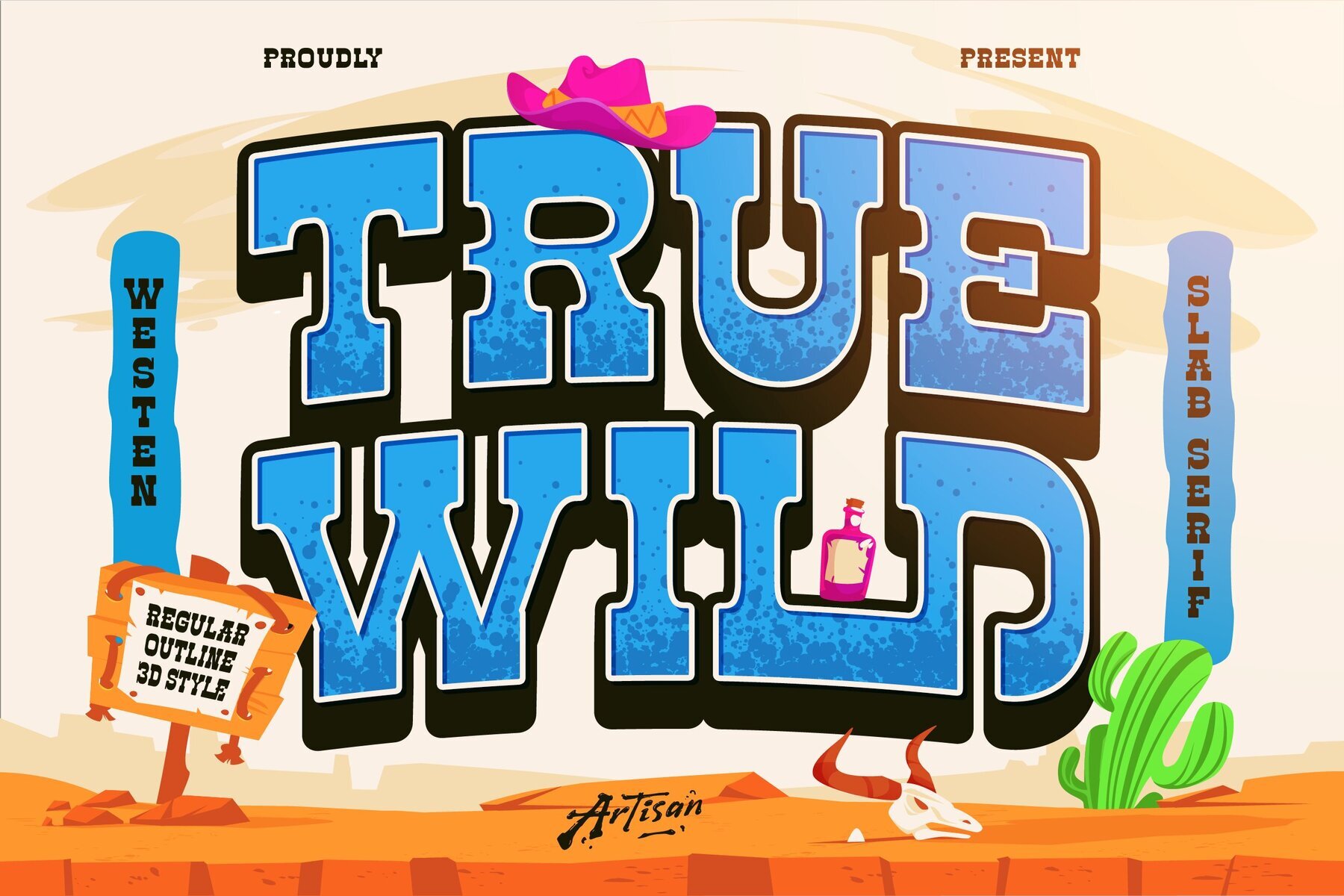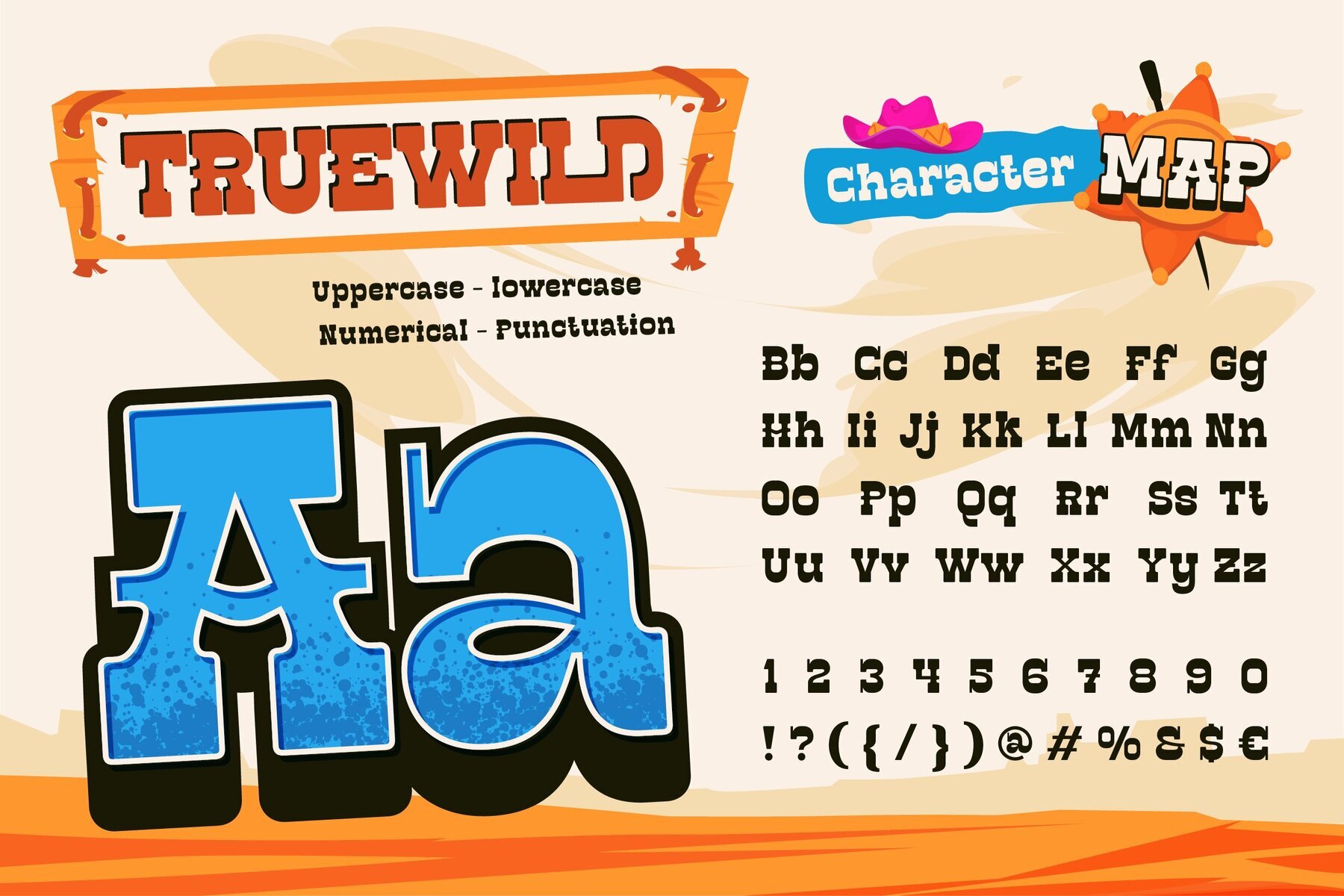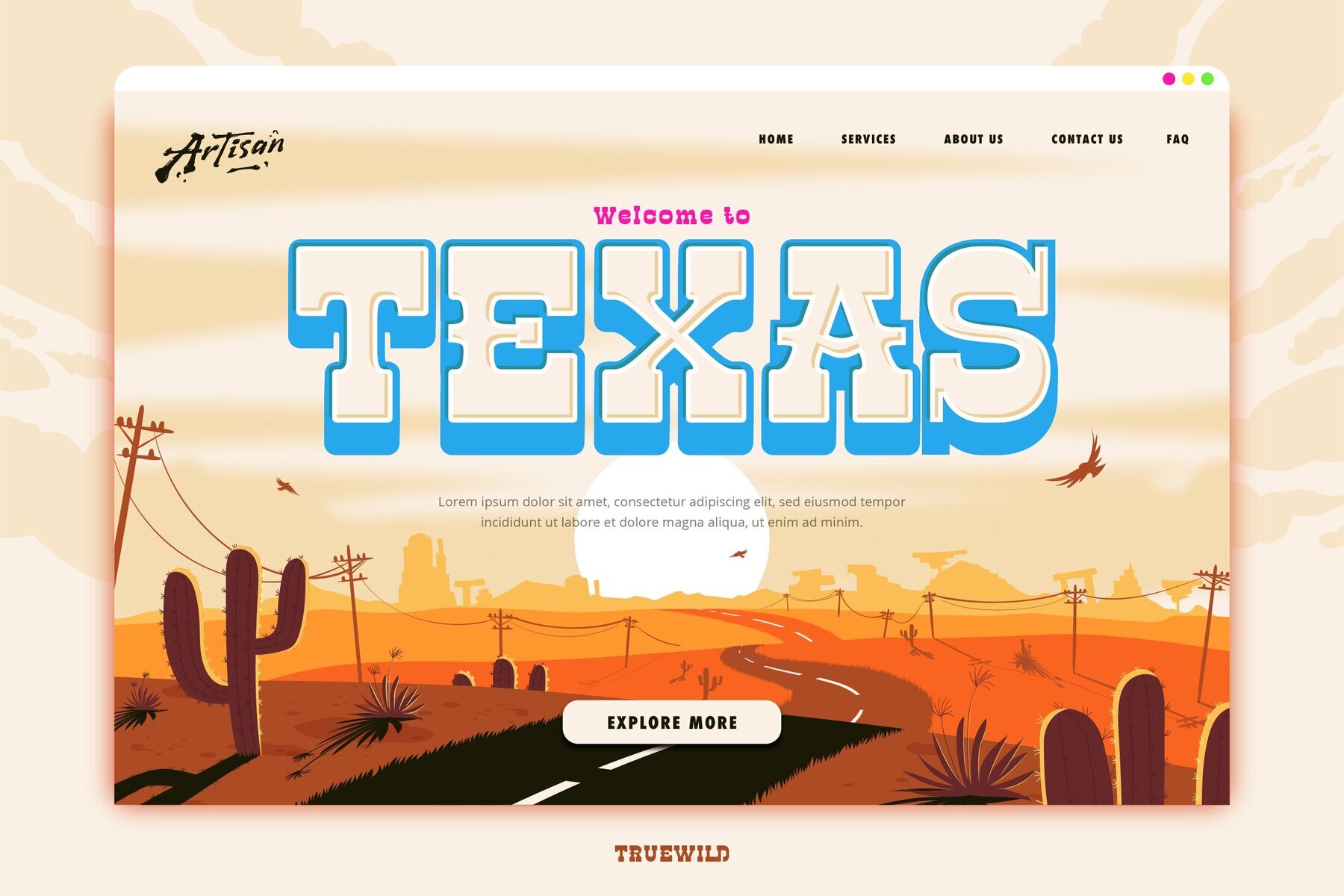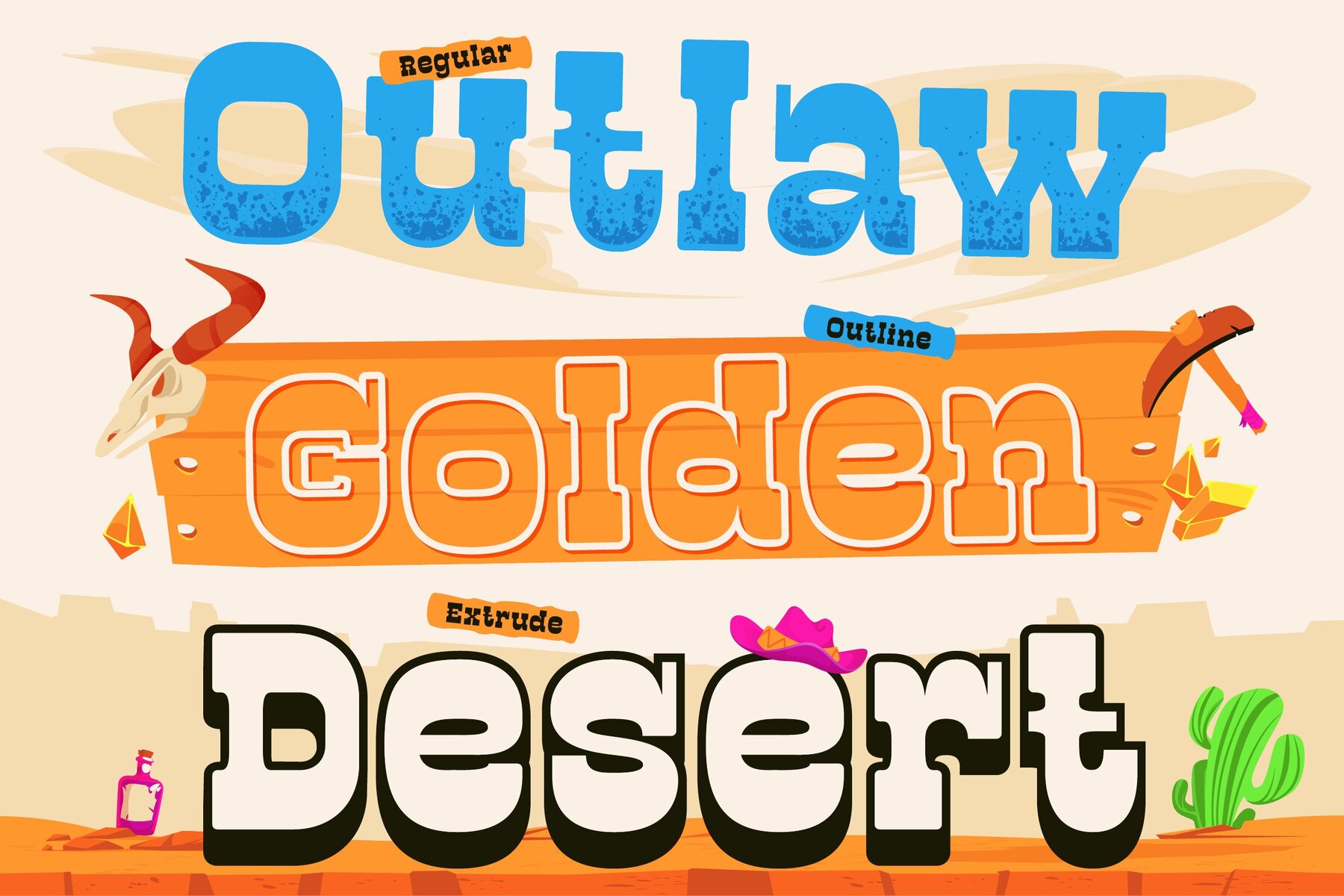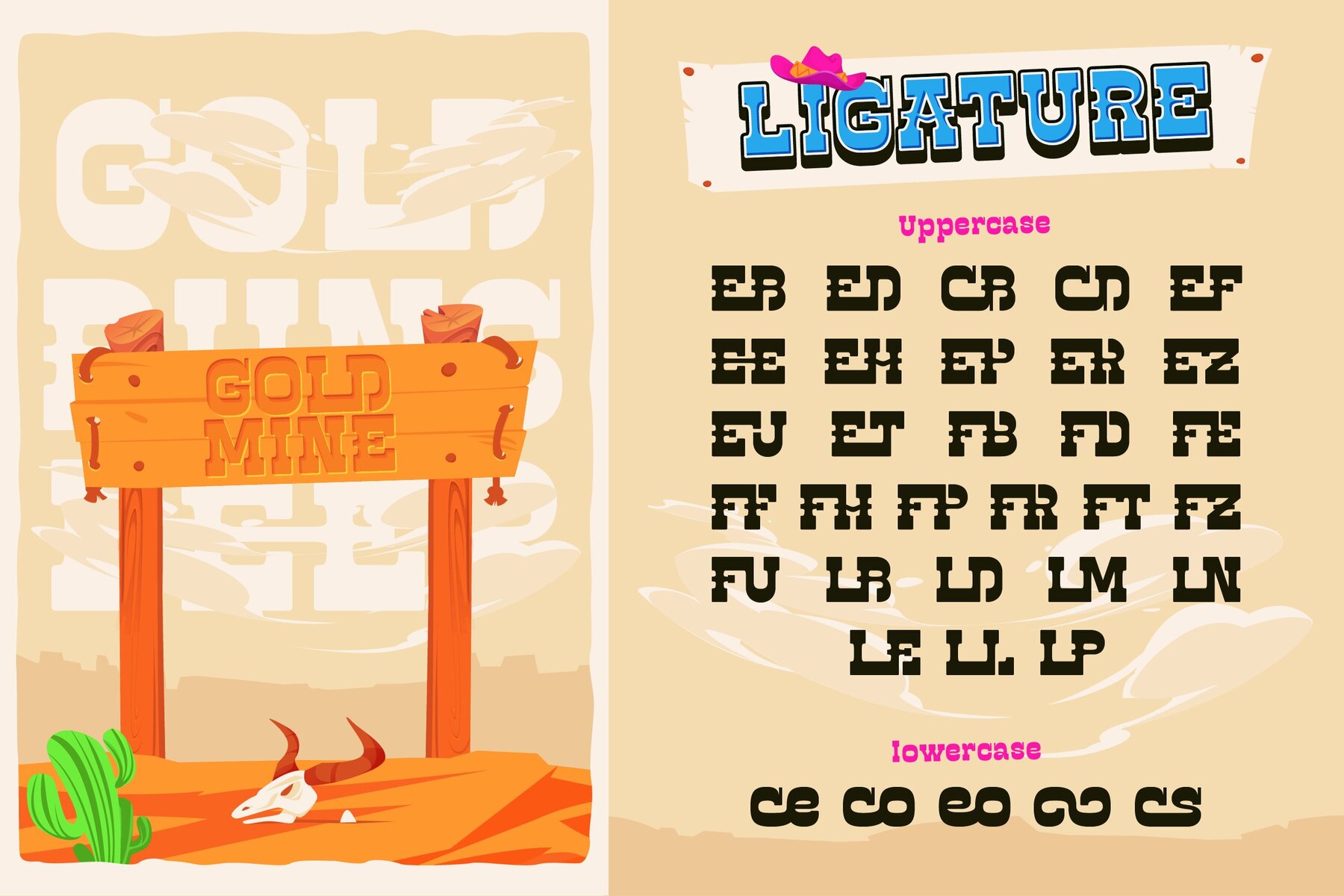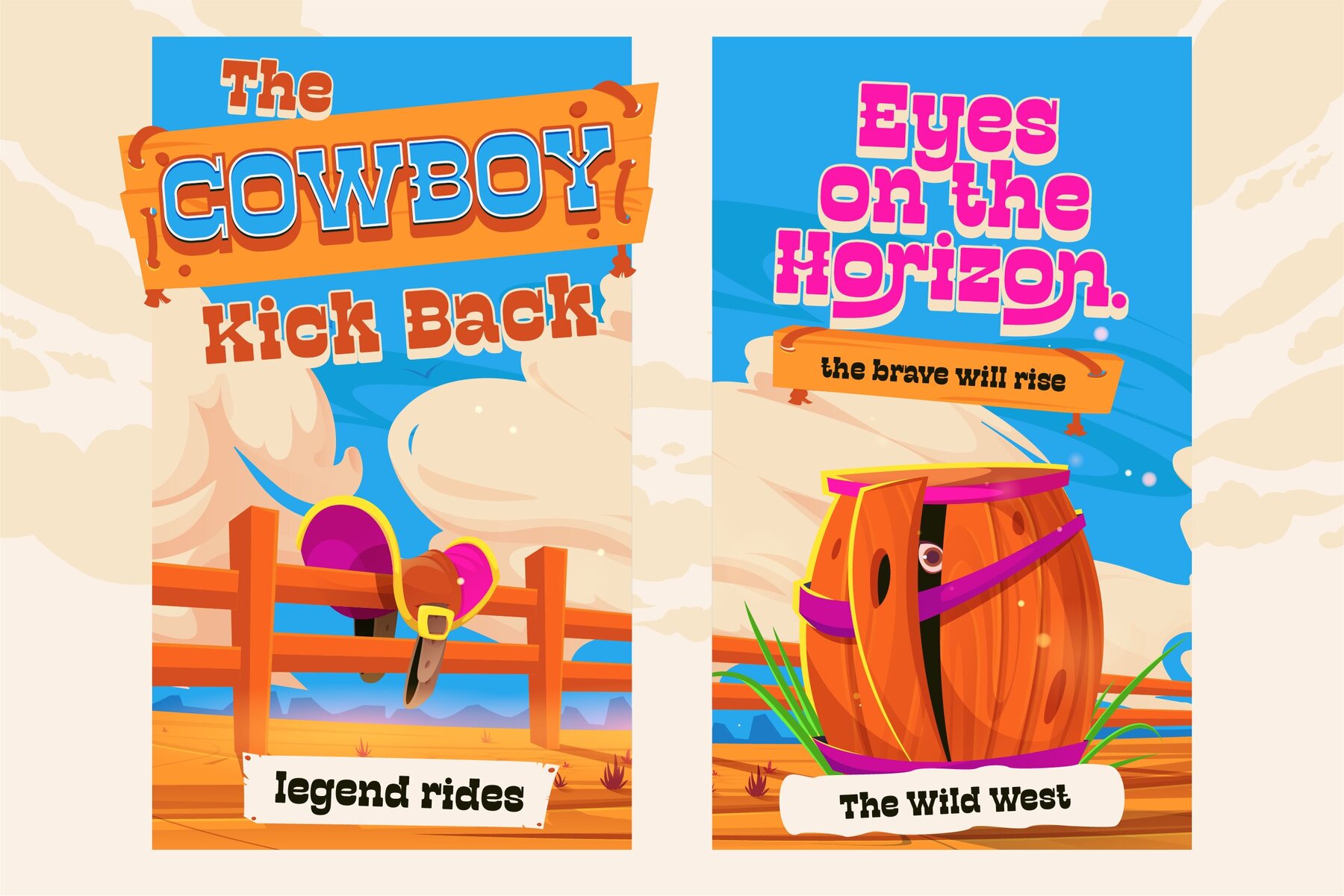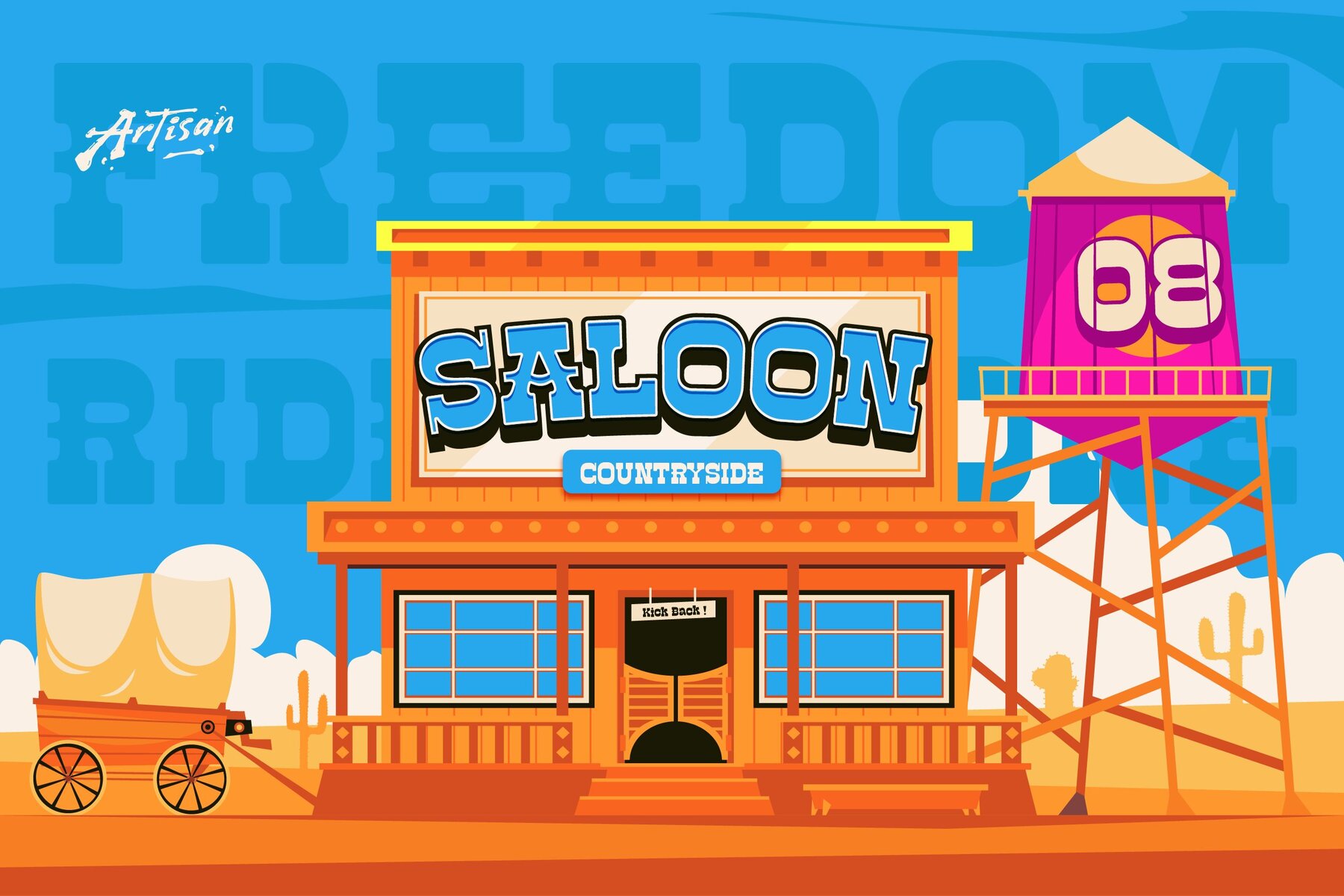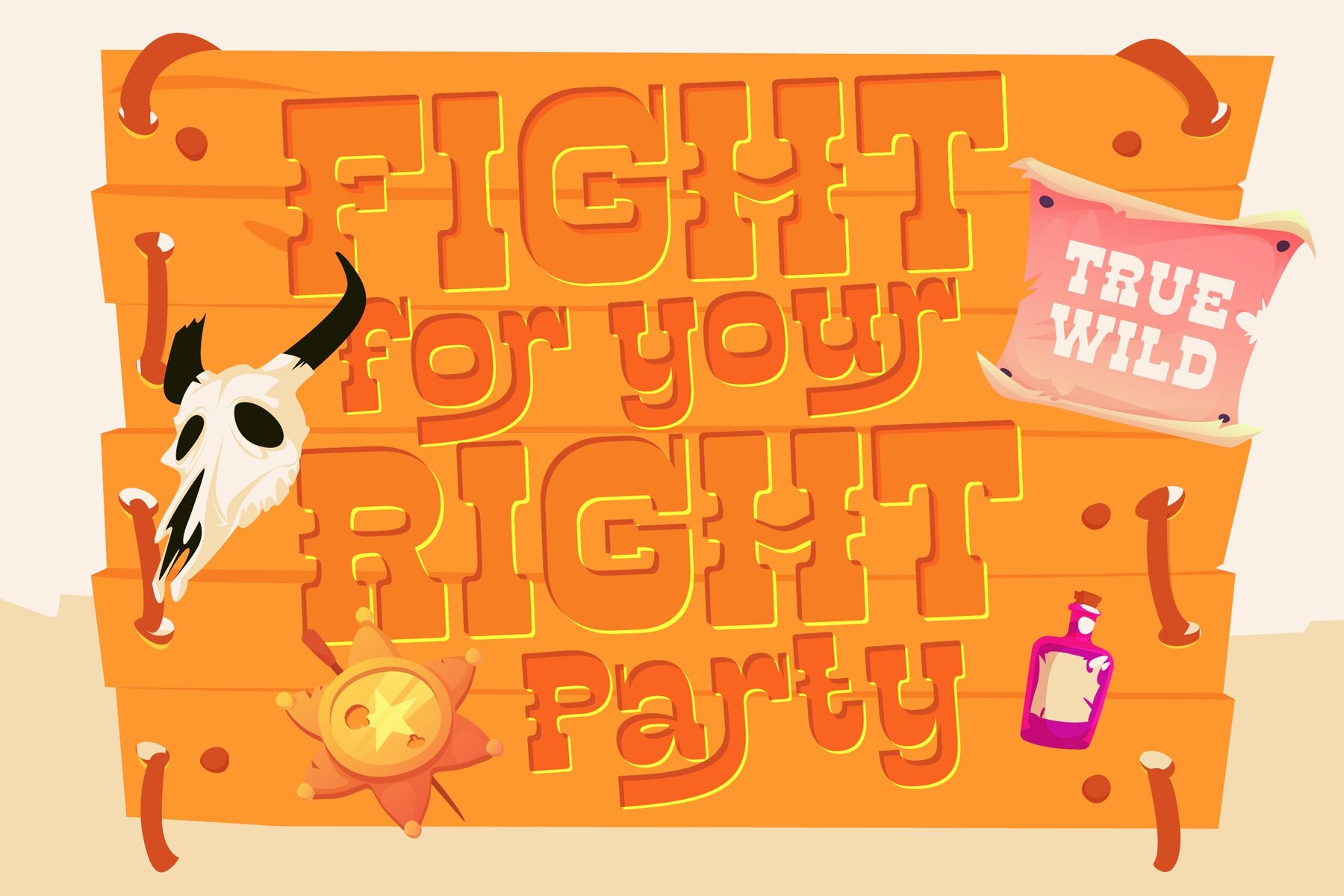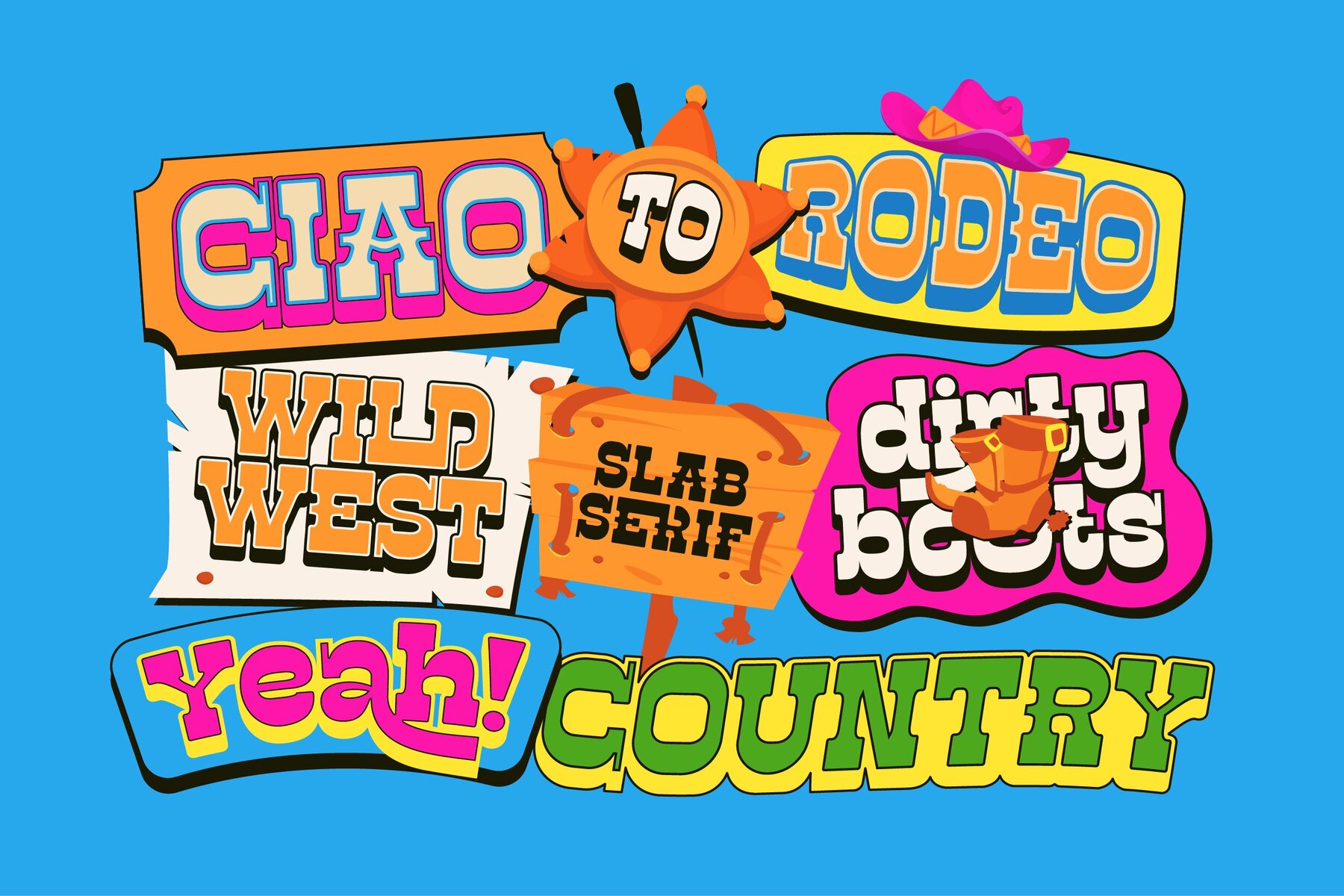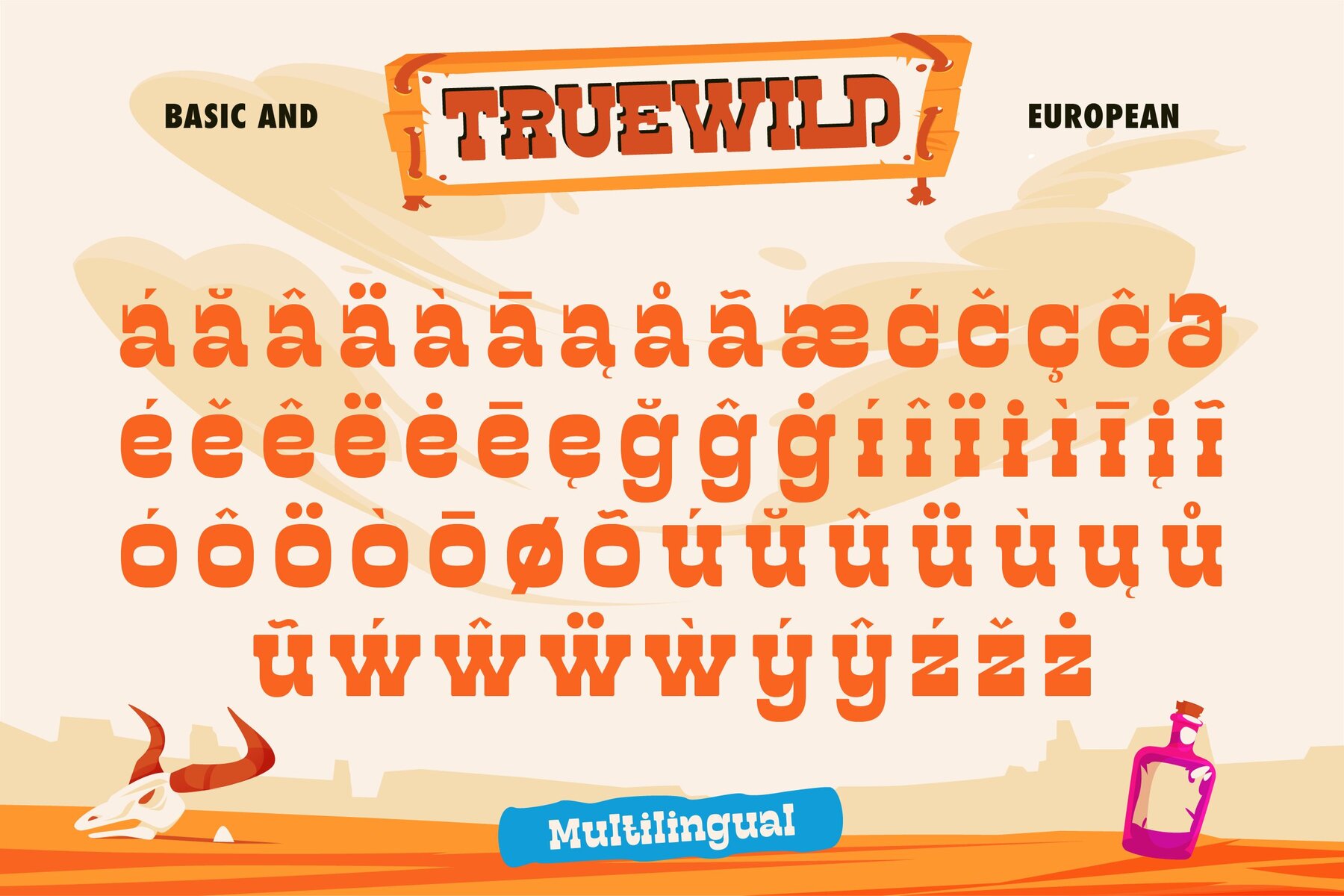
Truewild Font
Truewild Regular
Truewild 3D Extrude
Truewild Outline
The Truewild typeface channels classic Western energy with a modern approach. Its strong slab serif structure and robust design are inspired by the spirit of the open range, bringing a sense of adventure to any project. Ideal for cowboy movie posters, rodeo branding, or vintage product packaging, this font naturally commands attention with an authentic Wild West aesthetic. Truewild is available in Regular, Outline, and 3D styles, adding versatility to your design toolkit. Whether used for bold headlines, retro signage, or distinctive vintage logos, each style offers a tactile, gritty look reminiscent of sunbaked landscapes and genuine denim. The letterforms combine traditional Western charm with a clean, contemporary attitude, perfect for projects that need a touch of rugged appeal and personality.Truewild Slab Serif: Modern Western Character